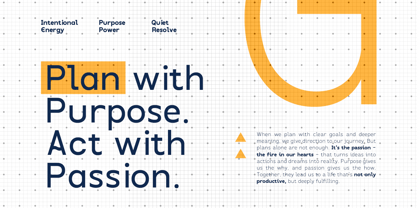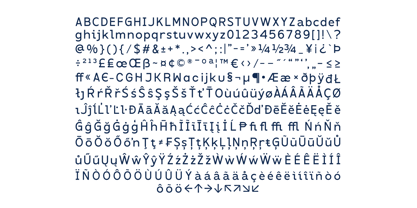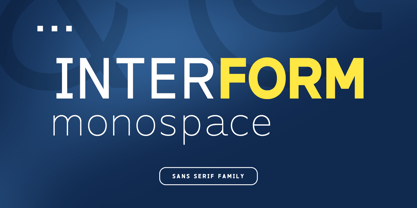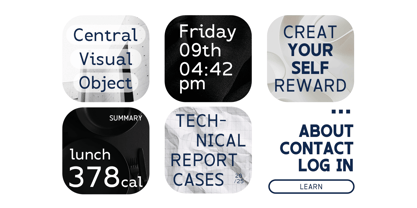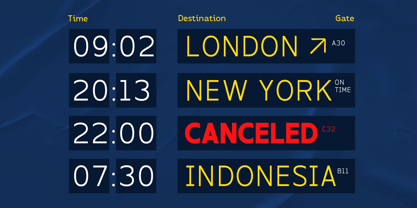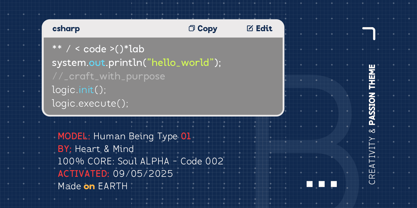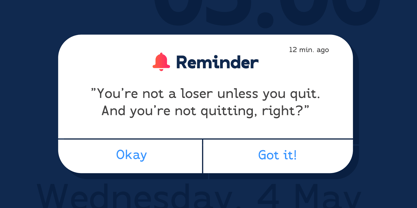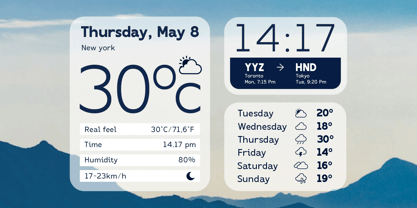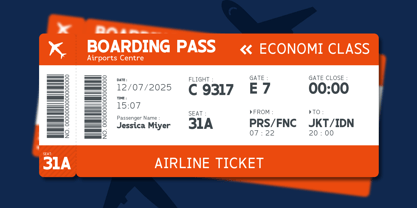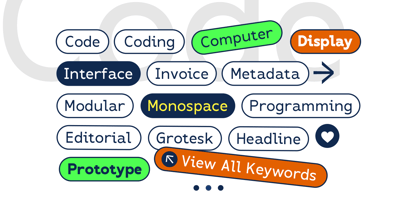
Interform Mono
by Arterfak Project
The Interform Mono Font Family was designed by Ahmad Ramzi Fahruddin and published by Arterfak Project. Interform Mono contains 5 styles.
Interform is a modern monospaced typeface, built with strong letterforms and an industrial aesthetic. It is designed to maintain readability at both small and large sizes. Interform is available in five weights—Light, Regular, Medium, SemiBold and Bold—to suit a wide range of design needs.
This typeface is ideal for digital interfaces, coding, labels, editorial layouts, tickets, and more. Although it features zero kerning, its well-balanced spacing makes it suitable for headlines, subheadlines, taglines, and body text. Interform also includes stylistic alternates and supports multiple languages.